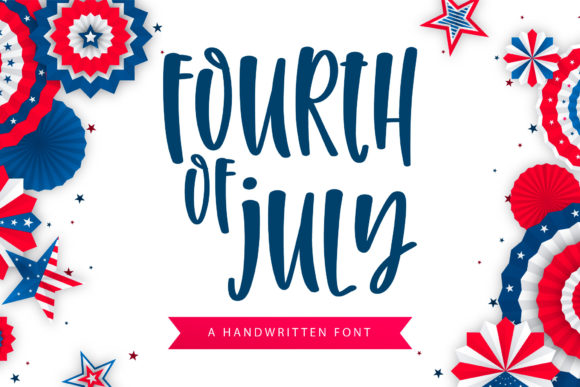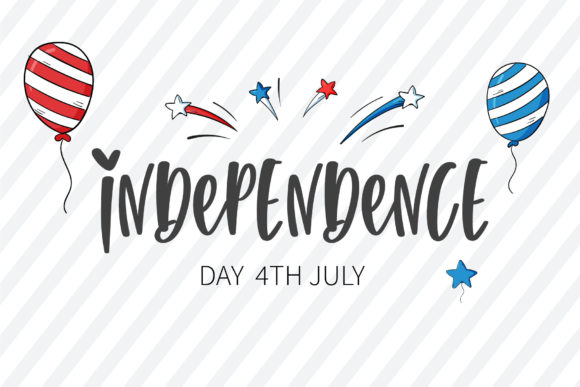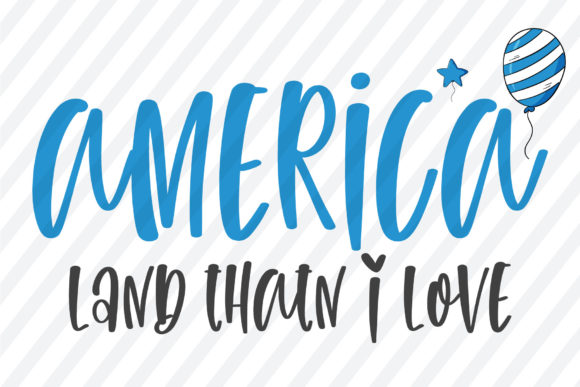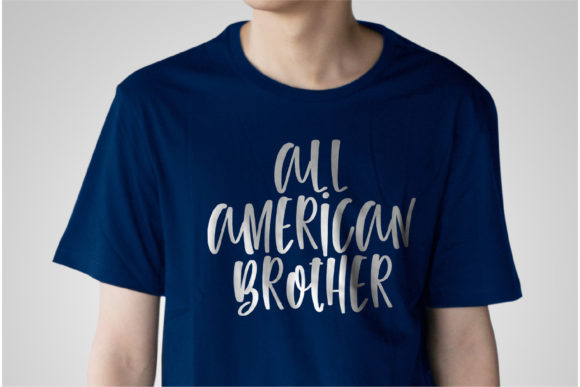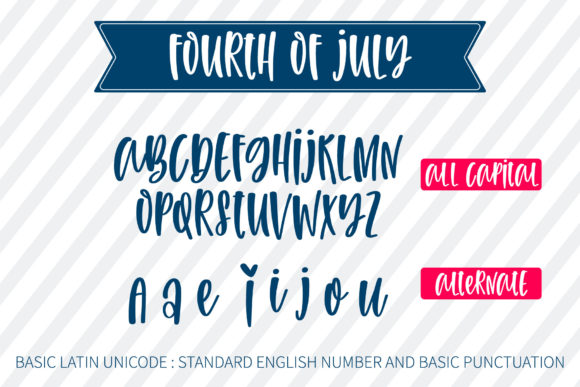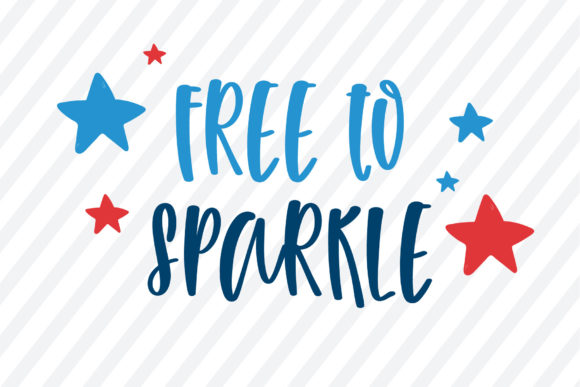
Fourth of July Font
About Fourth of July Font
Introducing Fourth Of July, a quirky and laid-back handwritten font that adds a touch of charm and character to your designs. With its unique style and versatile nature, this font is a wonderful asset to your font library, capable of enhancing any creation.
Fourth Of July captures the essence of a carefree and relaxed atmosphere. Its handwritten appearance gives your designs a personal and organic feel, as if they were crafted with a pen or marker. The slightly irregular letterforms and playful strokes add a touch of whimsy and uniqueness, setting your designs apart from the ordinary.
No matter the topic or theme, Fourth Of July can bring a sense of personality and charm to your designs. Whether you’re creating greeting cards, posters, social media graphics, or any other project, this font will infuse them with a casual and approachable vibe. It’s perfect for adding a friendly touch to invitations, party decorations, blog headers, and more.
The versatility of Fourth Of July is one of its standout features. It can adapt to various design styles and themes, whether you’re going for a rustic, bohemian, or playful look. Its relaxed and laid-back nature makes it suitable for a wide range of projects, from DIY crafts to branding and marketing materials. Let your creativity flow and explore the endless possibilities with this font.
The individual letterforms in Fourth Of July have their own unique quirks and imperfections, reflecting the authentic and handmade nature of the font. Each character has a slightly different shape, giving your text a dynamic and organic appearance. This adds a touch of personality and liveliness to your designs, making them more engaging and captivating.
Despite its playful and casual style, Fourth Of July remains highly legible and easy to read. The letters are well-formed and distinct, ensuring that your message comes across clearly. Whether it’s a short phrase or a longer paragraph, your text will be easily readable, allowing your design to effectively communicate its intended message.
In summary, Fourth Of July is a quirky and laid-back handwritten font that adds a unique charm to your designs. With its versatility and ability to enhance any creation, this font is a valuable asset to have in your font library. Let Fourth Of July bring a touch of whimsy and personality to your projects, and enjoy the creative possibilities it offers.